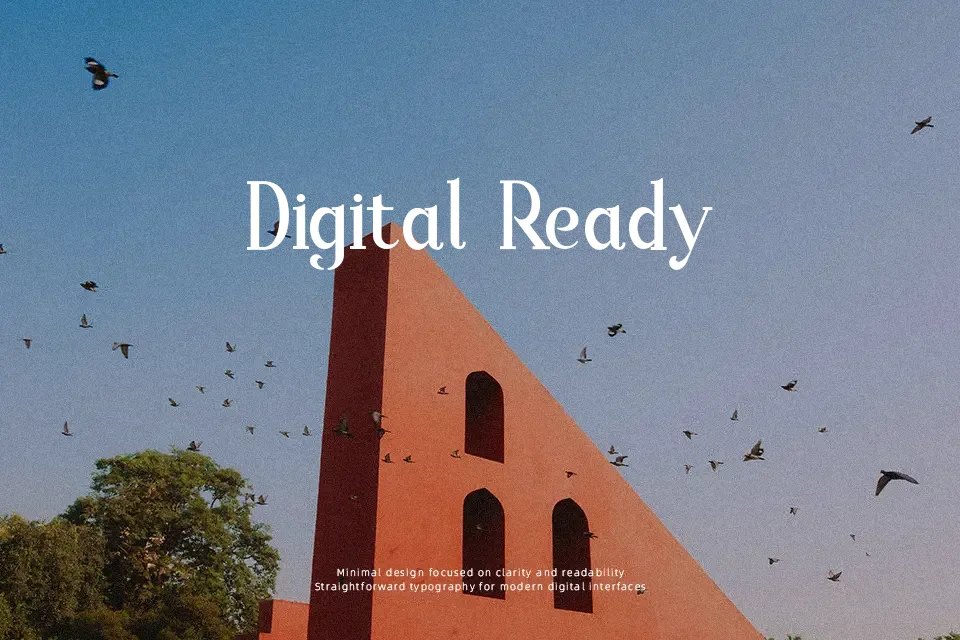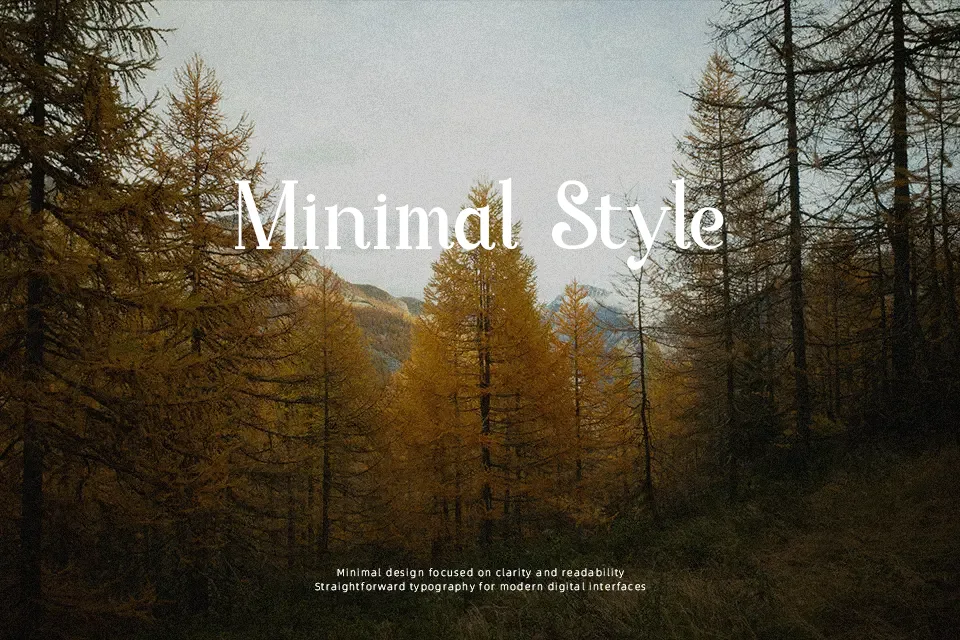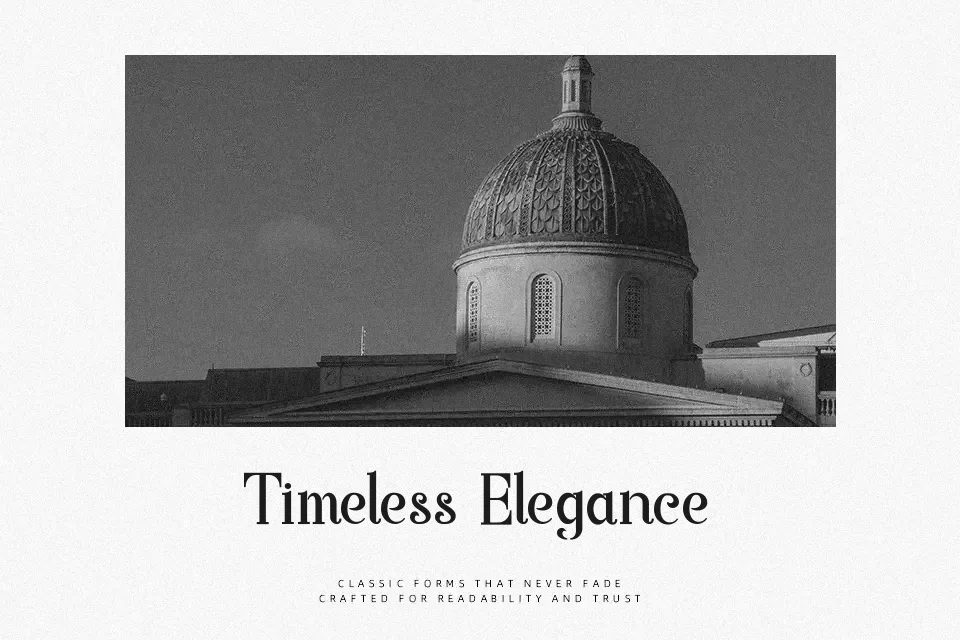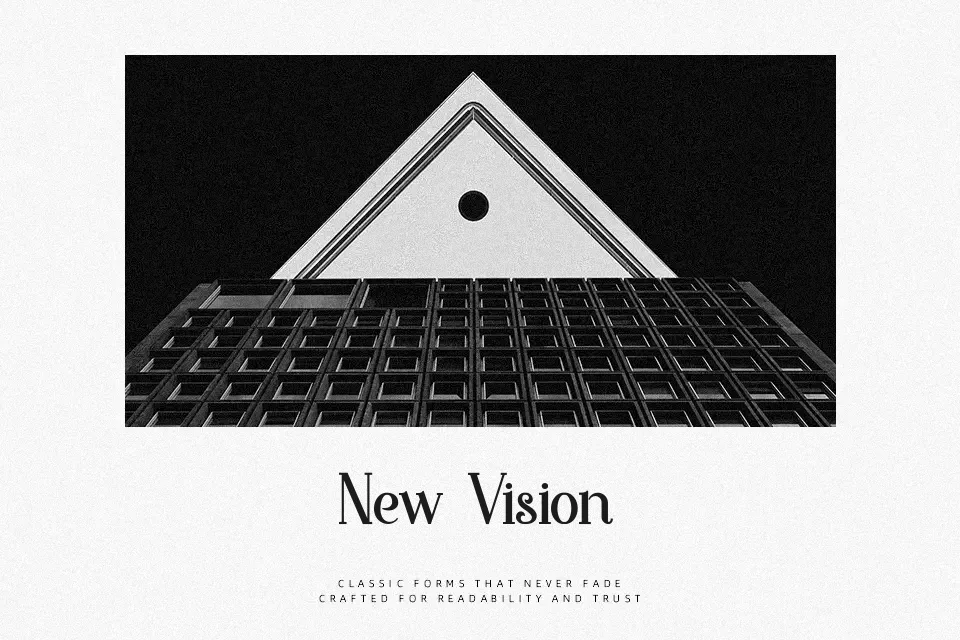
Starla Font
Starla Font showcases a robust decorative serif architecture marked by thick vertical stems, sharp terminal flourishes, and substantial stroke contrast. The letterforms maintain balanced kerning and uniform height across uppercase and lowercase sets, creating an assertive visual rhythm in short display compositions. While the design commands immediate attention in large-format media such as music festival posters, apparel graphics, and restaurant signage, the intricate serif details and dense weight diminish legibility when scaled down to small interface elements or lengthy body text. The tight horizontal proportions help preserve space in multi-line display headers without sacrificing character definition.
Best For: retro poster headlines, vintage product packaging, apparel graphics, restaurant signage
Not Ideal For: continuous body text, small interface labels, dense editorial layouts, mobile captions